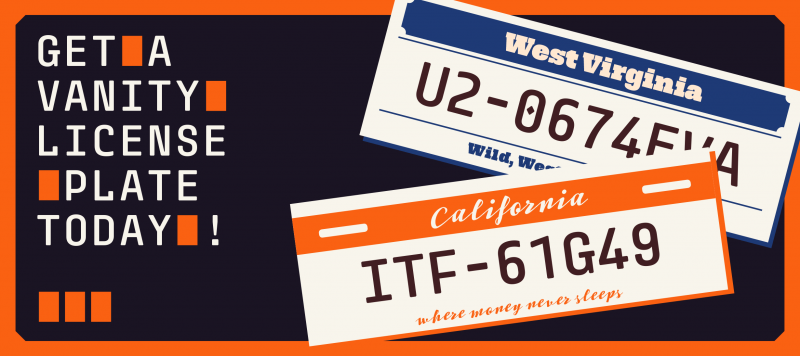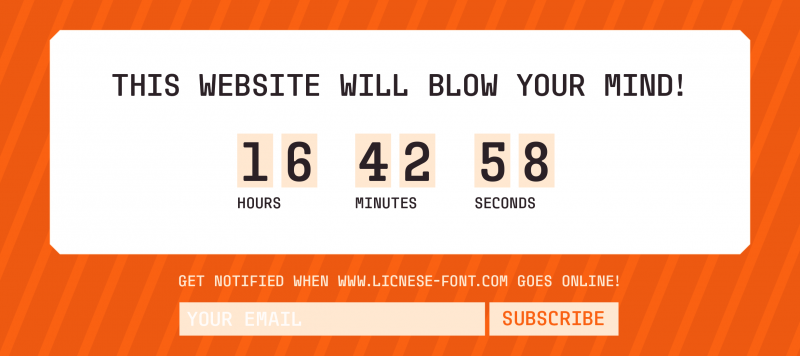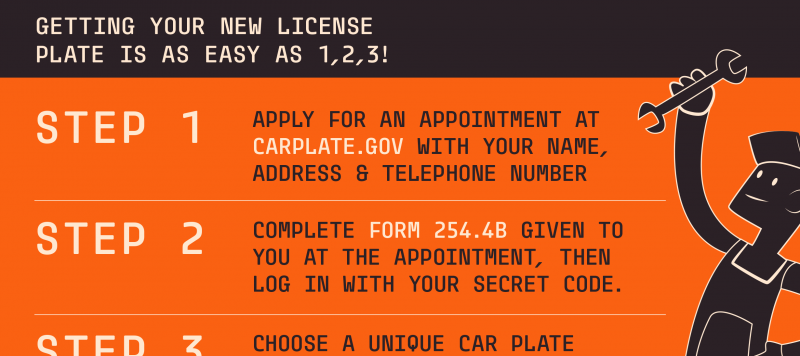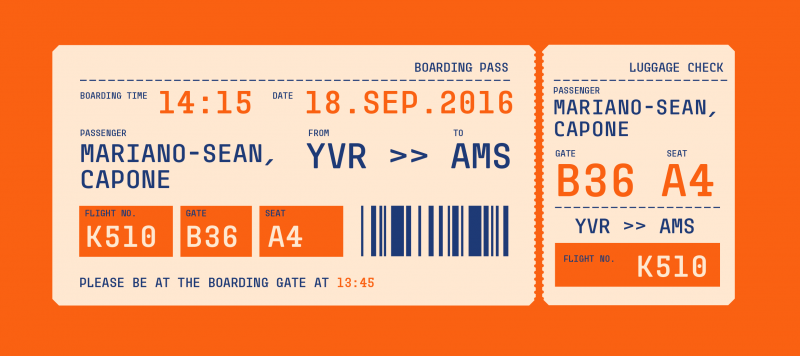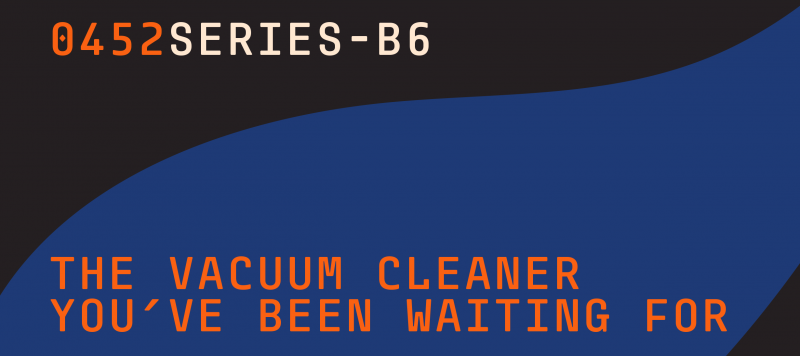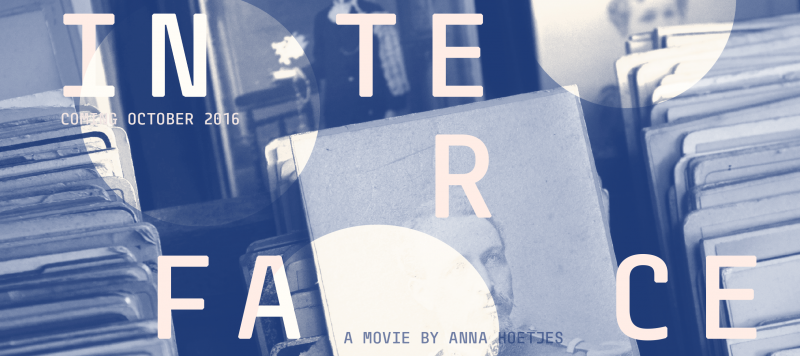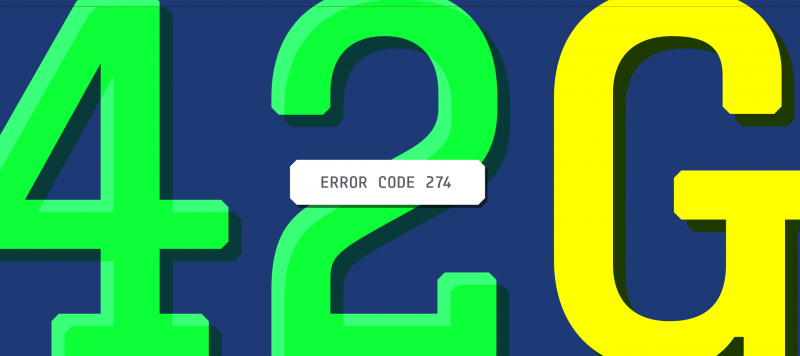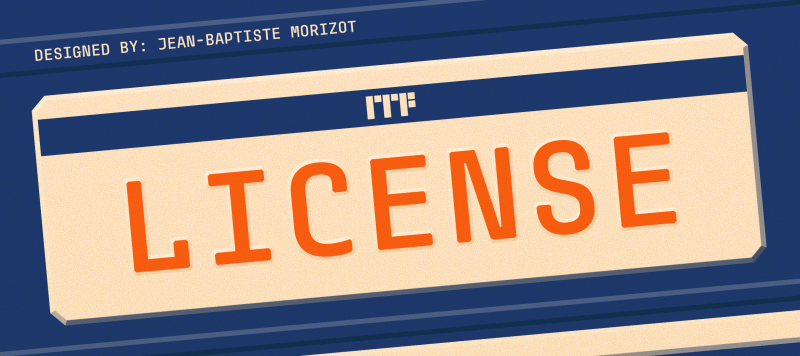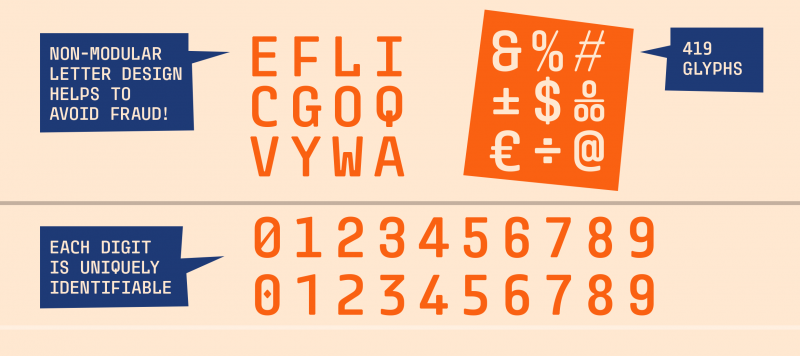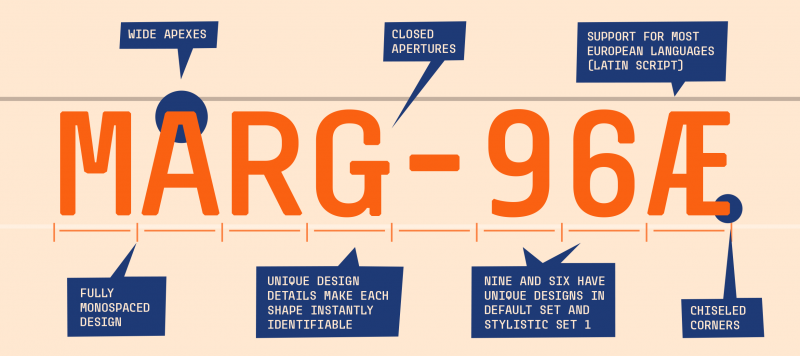
License is a typeface designed for car and motorbike license plates. Its letters – all uppercase – are monospaced and instantly identifiable; however, they don’t look so technical that they’d be out of place in other design applications. For instance, License is an excellent choice for address signage, too. While License only includes one set of letters, it offers three ranges of numerals. The standard numerals are classic-looking, with mostly-closed apertures and low stroke contrast. The numerals in Stylistic Set 1 are more streamlined, with generally open counters and increased character differentiation. The numerals in Stylistic Set 2 are intended for general graphic design work; they feature increased stroke contrast, additional serifs, and related forms for the ‘6’ and ‘9’.
Family Name | License |
Designer(s) | Jean-Baptiste Morizot |
Classification | Display, Sans |